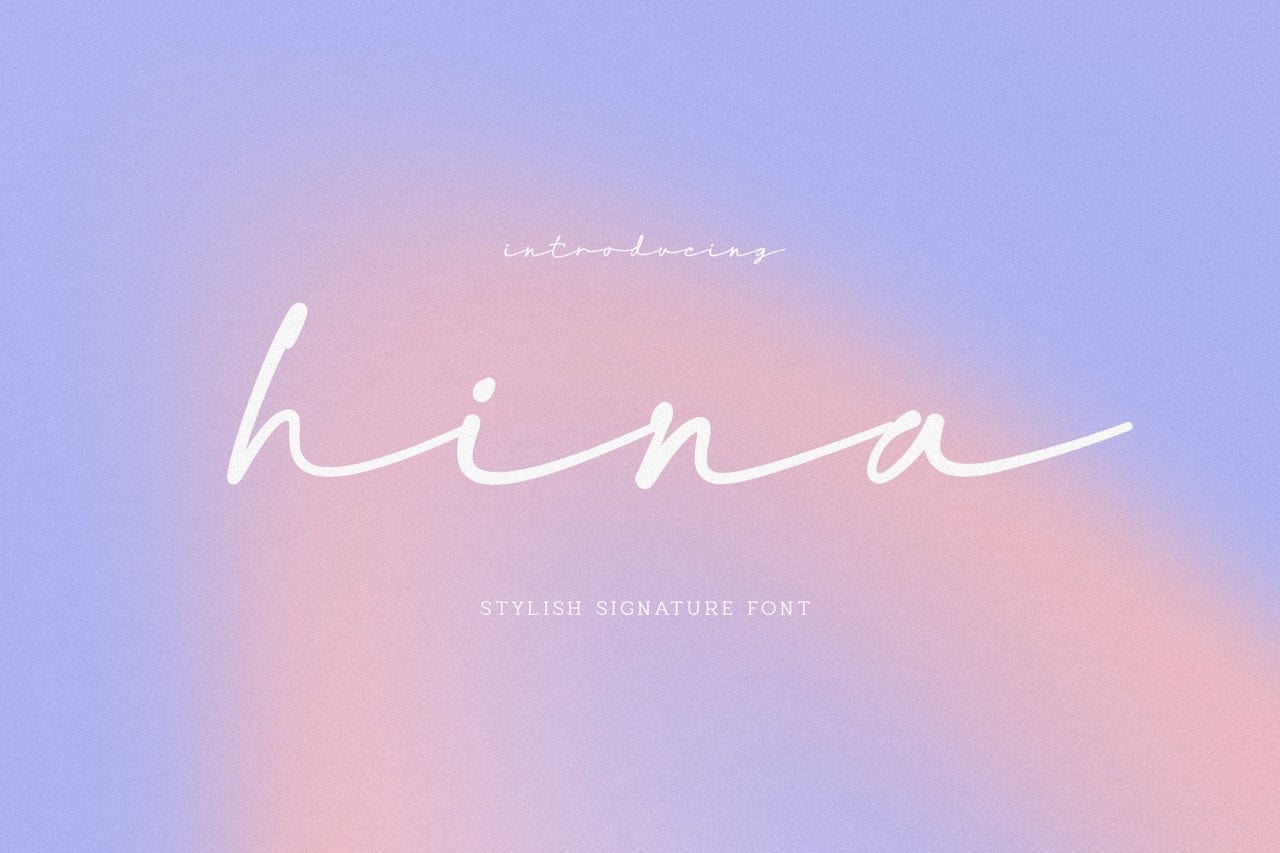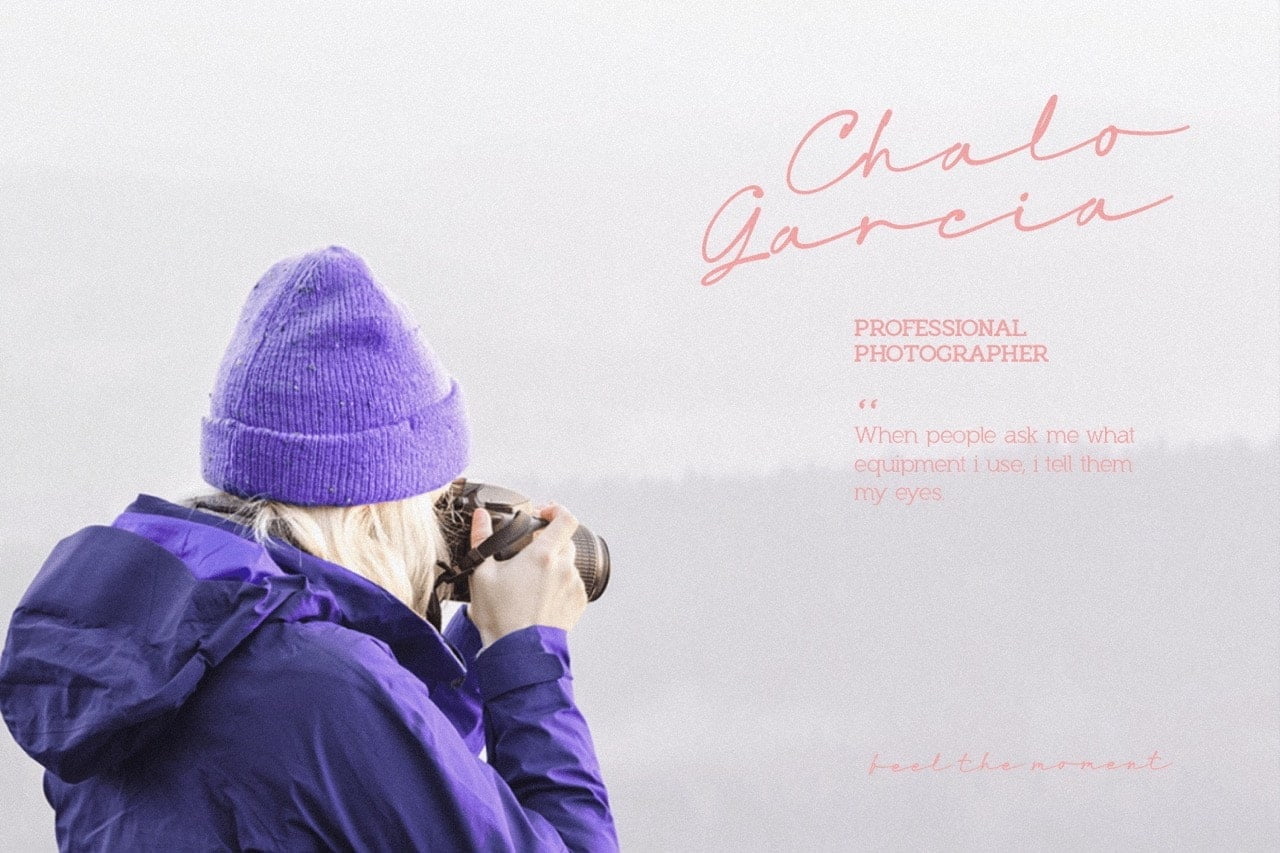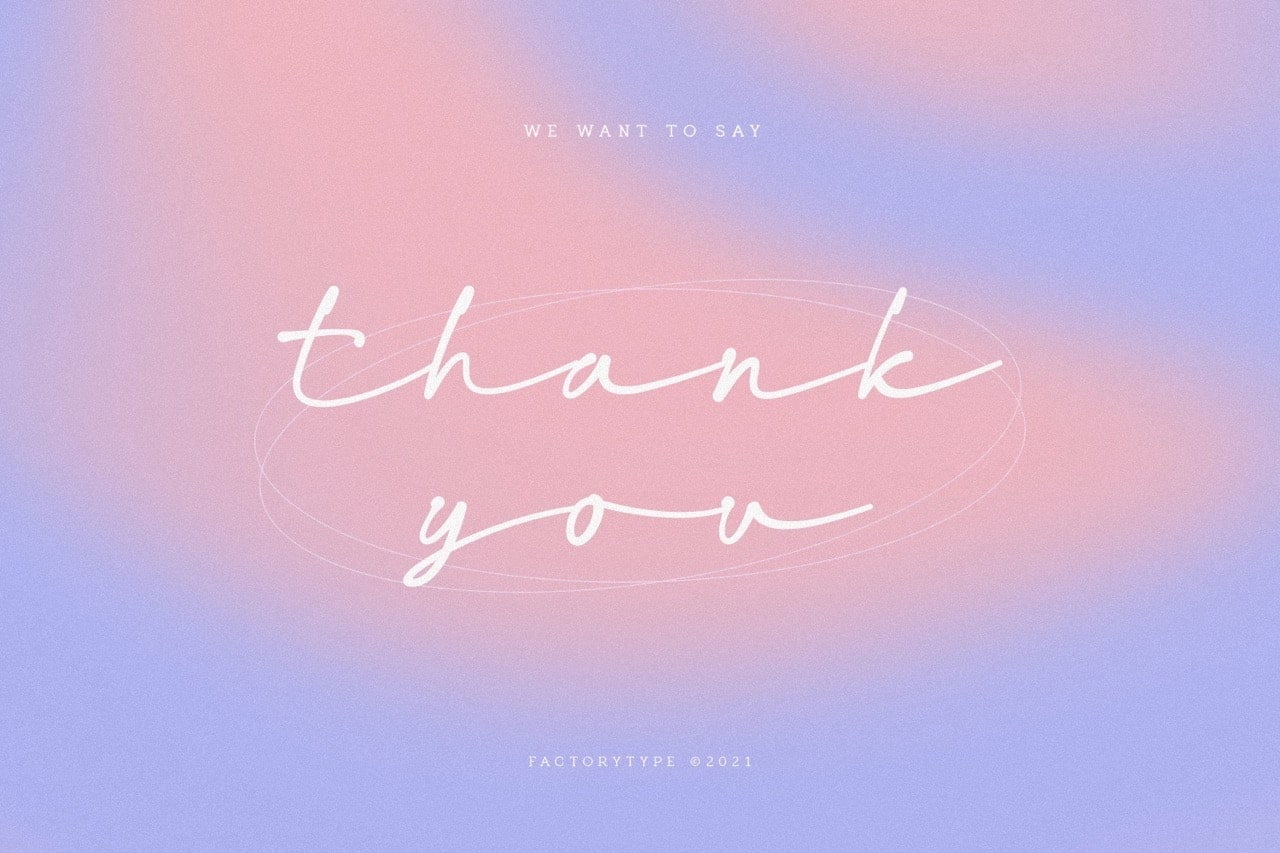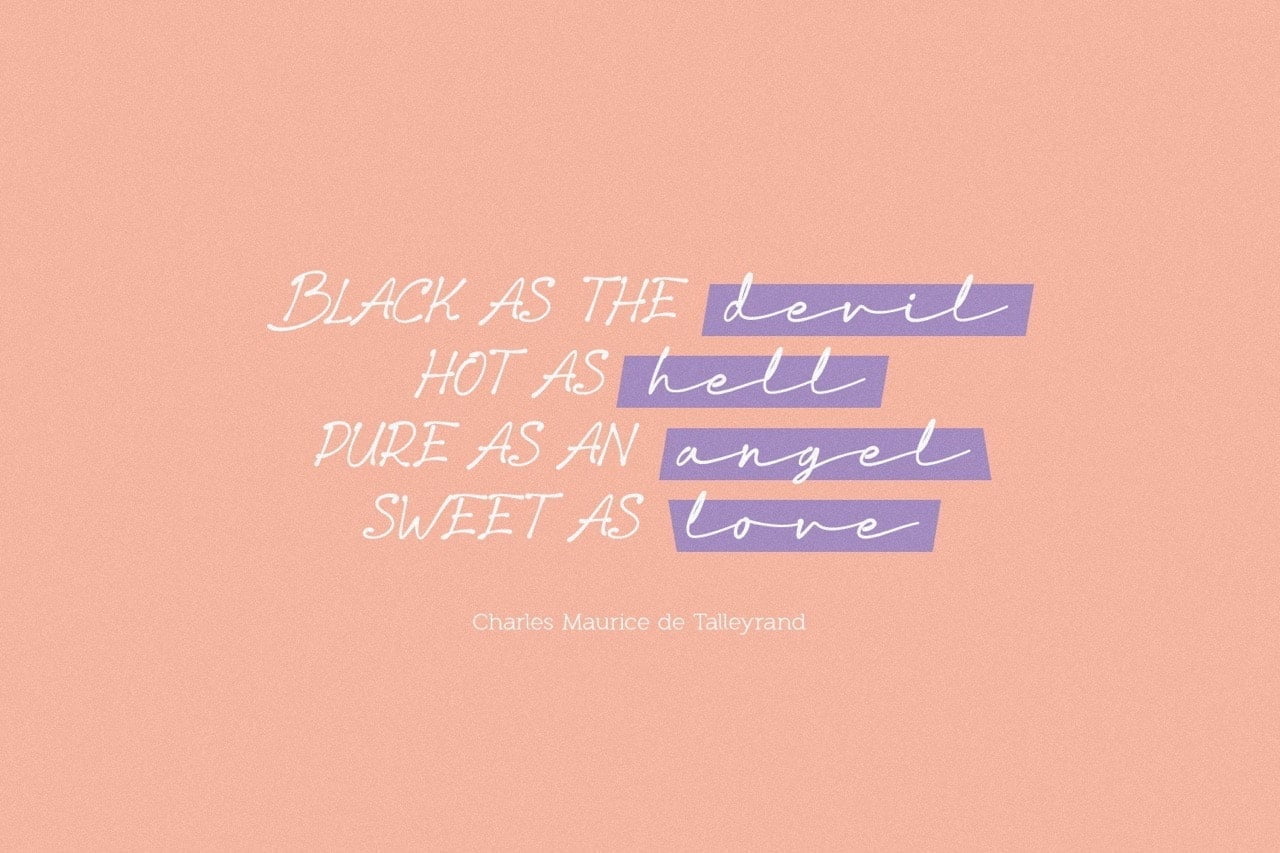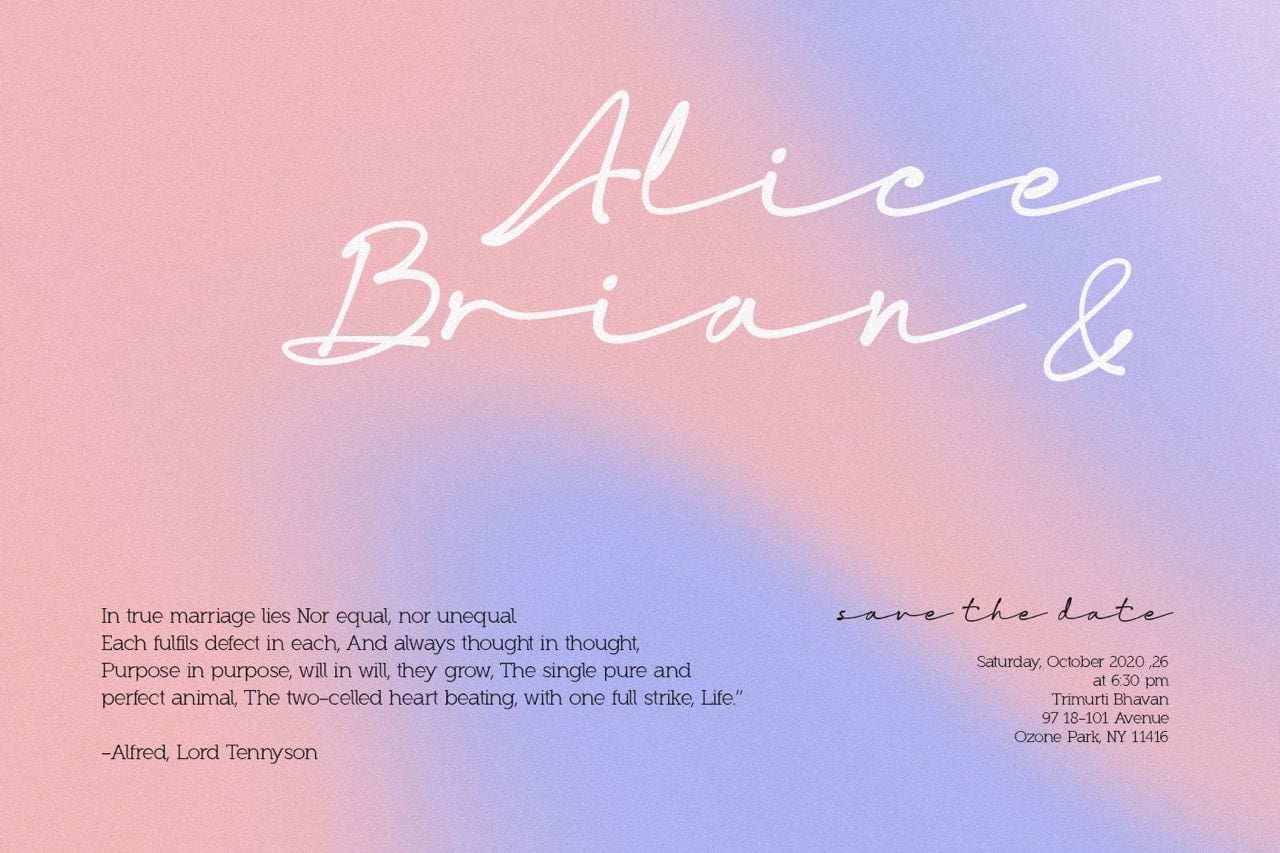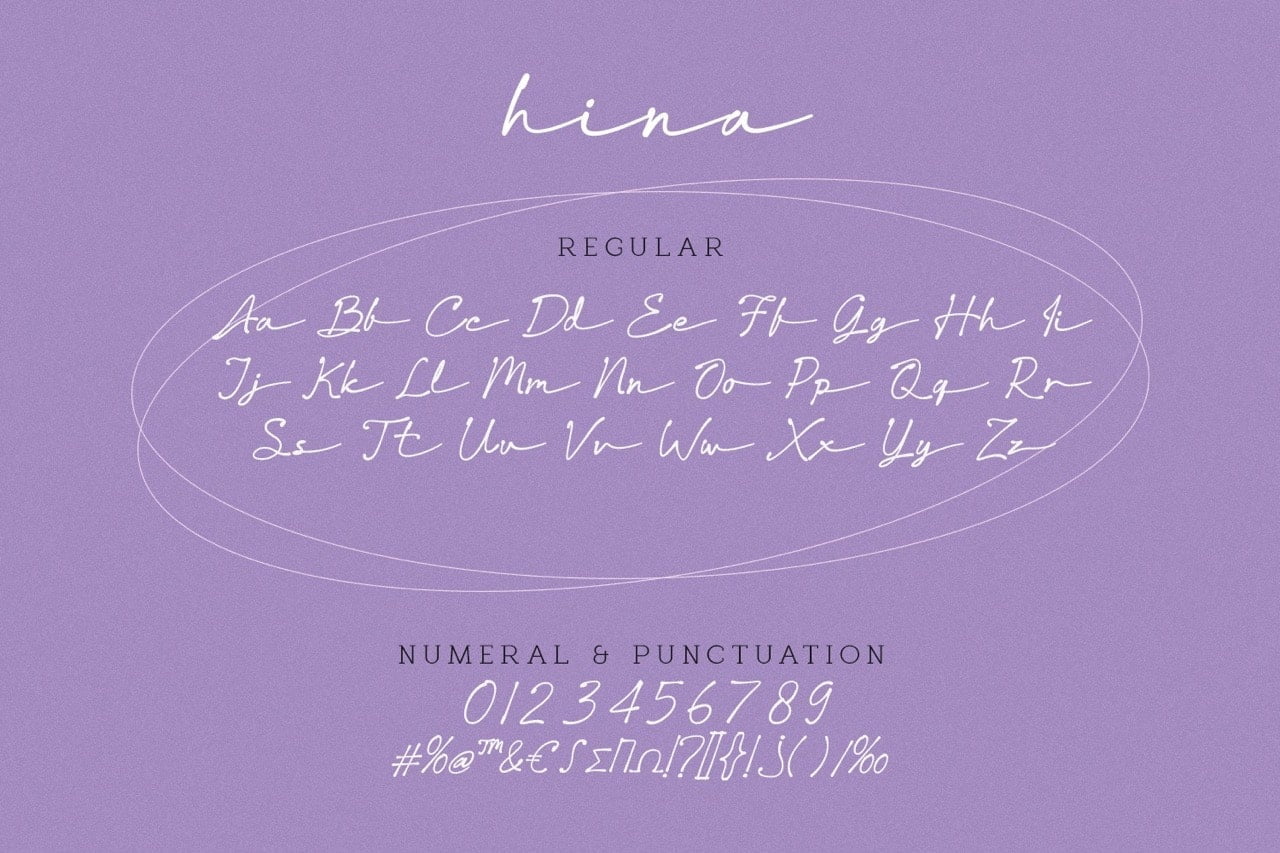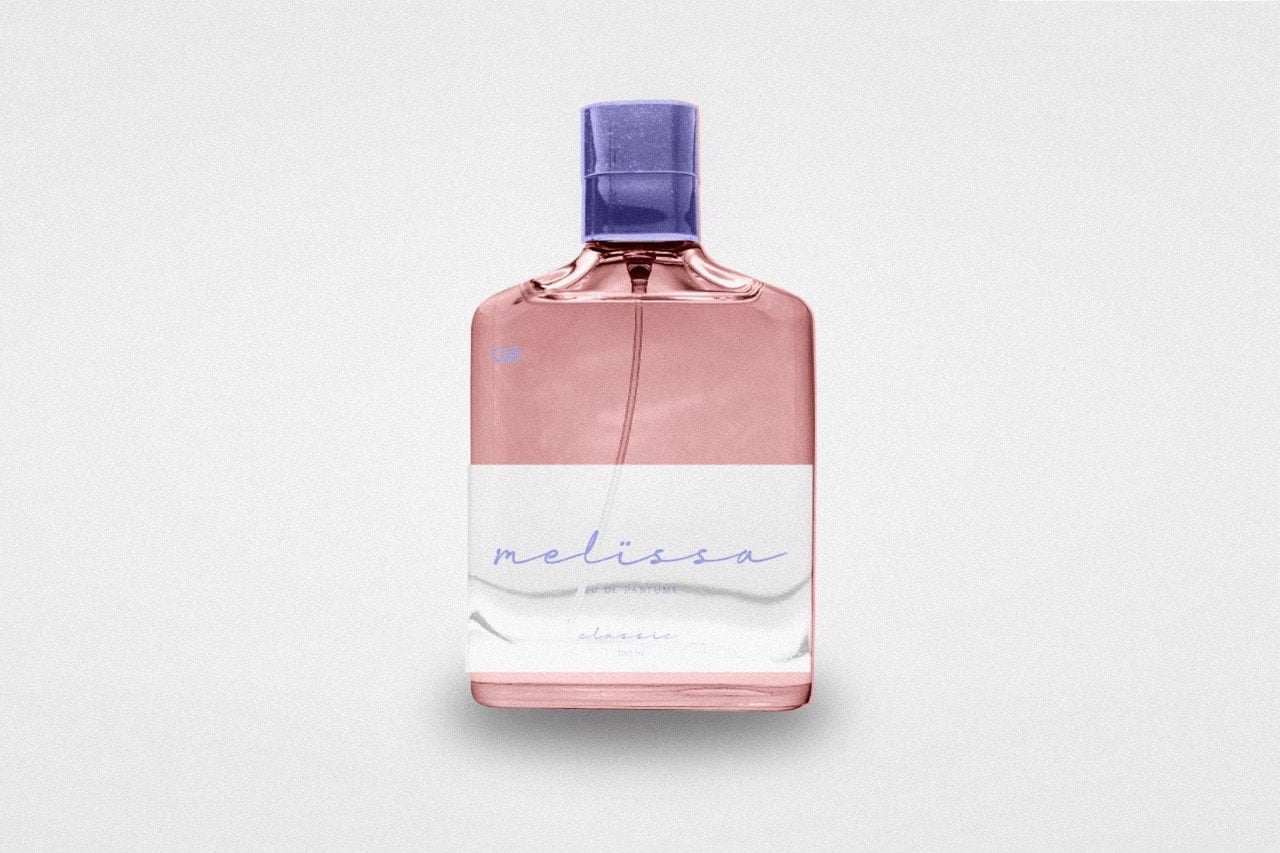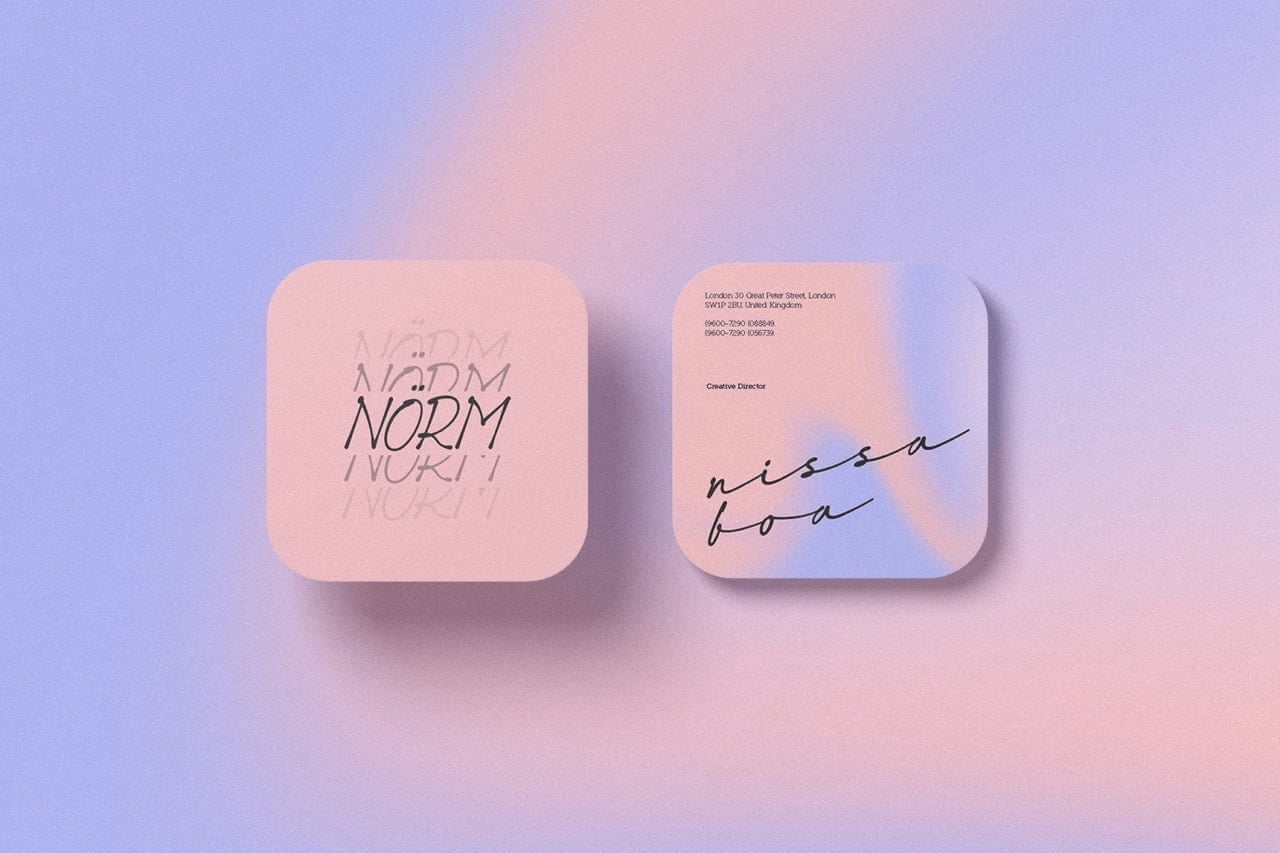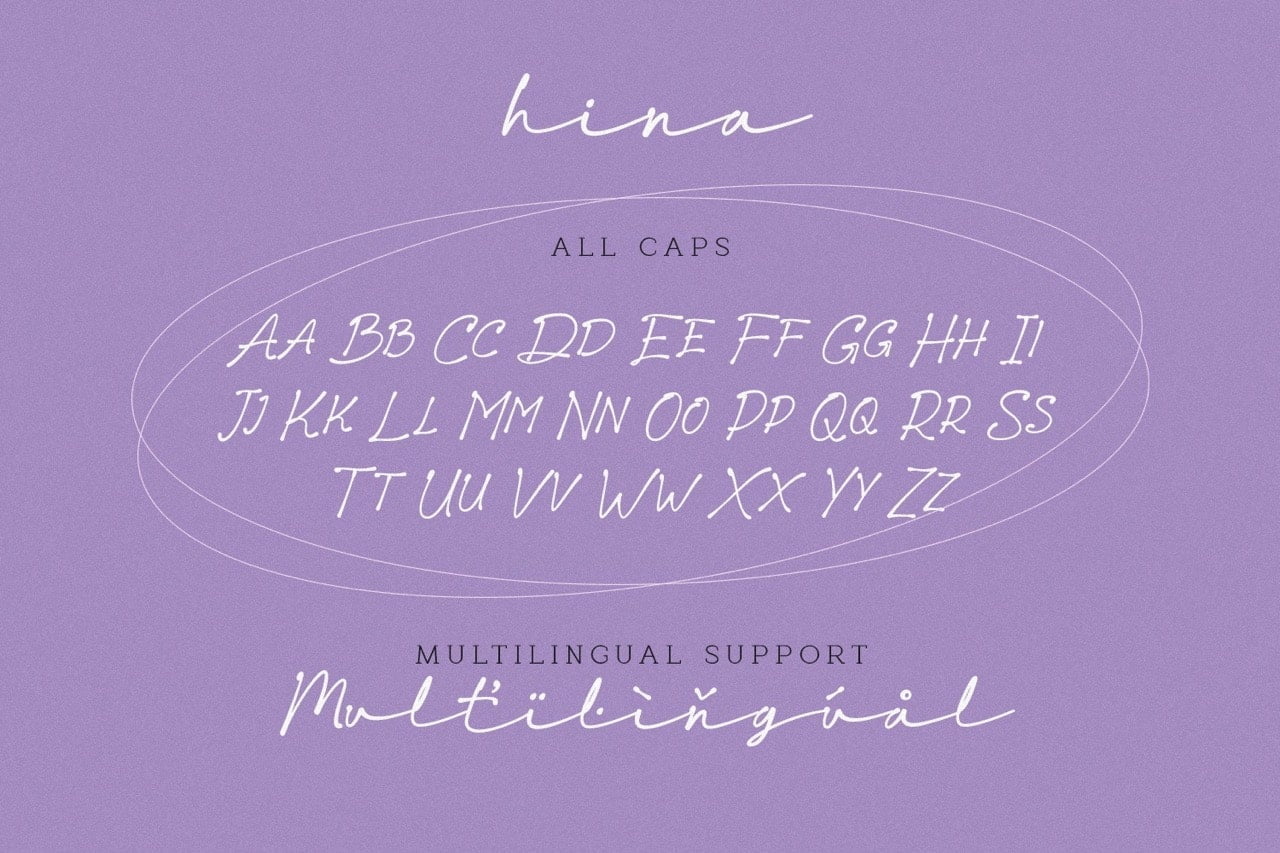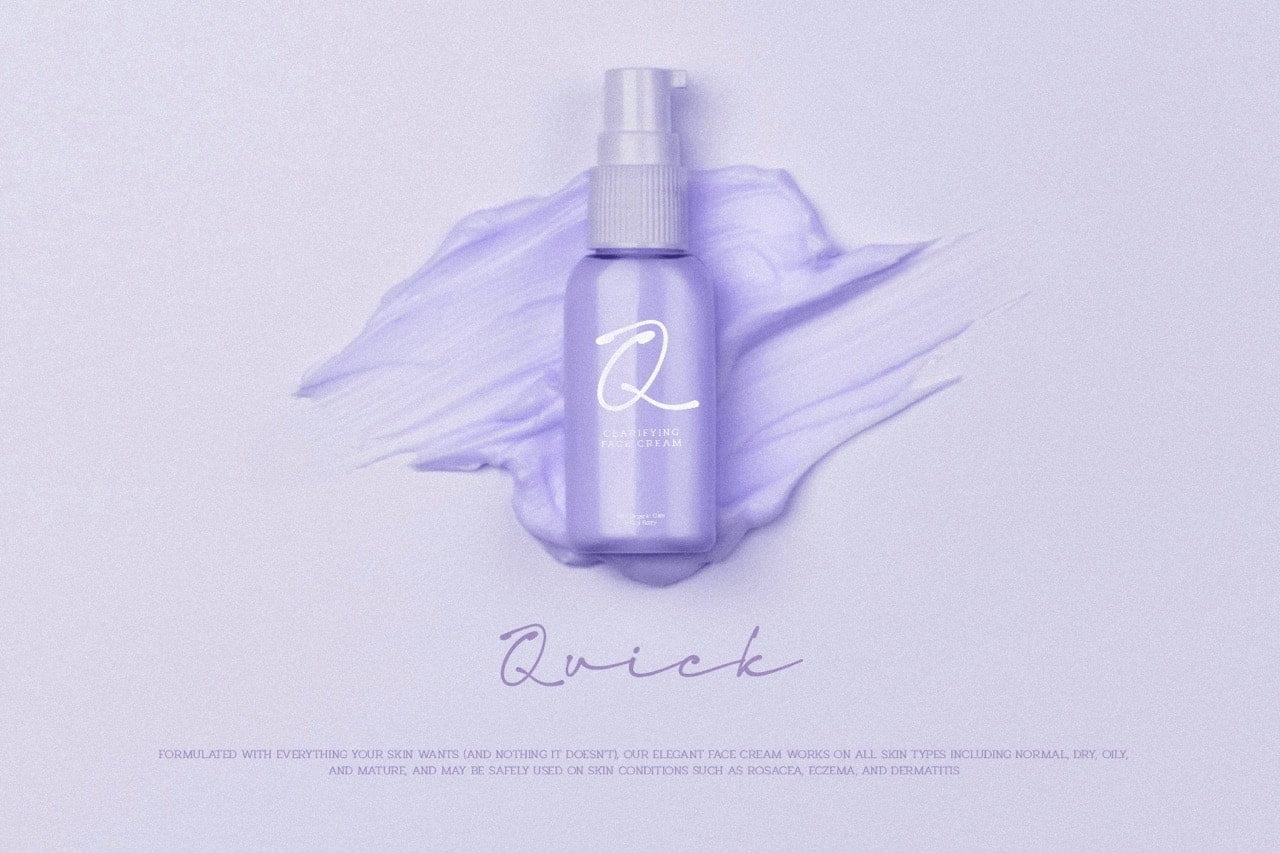
Hina is a handwritten signature font with a personal touch. It features a hand drawn look and is ideal for projects requiring a handwritten touch, such as branding and logo designs, wedding invitations and stationery, social media posts and promotion.
- Stylistic Ligatures
Hina Handwriting